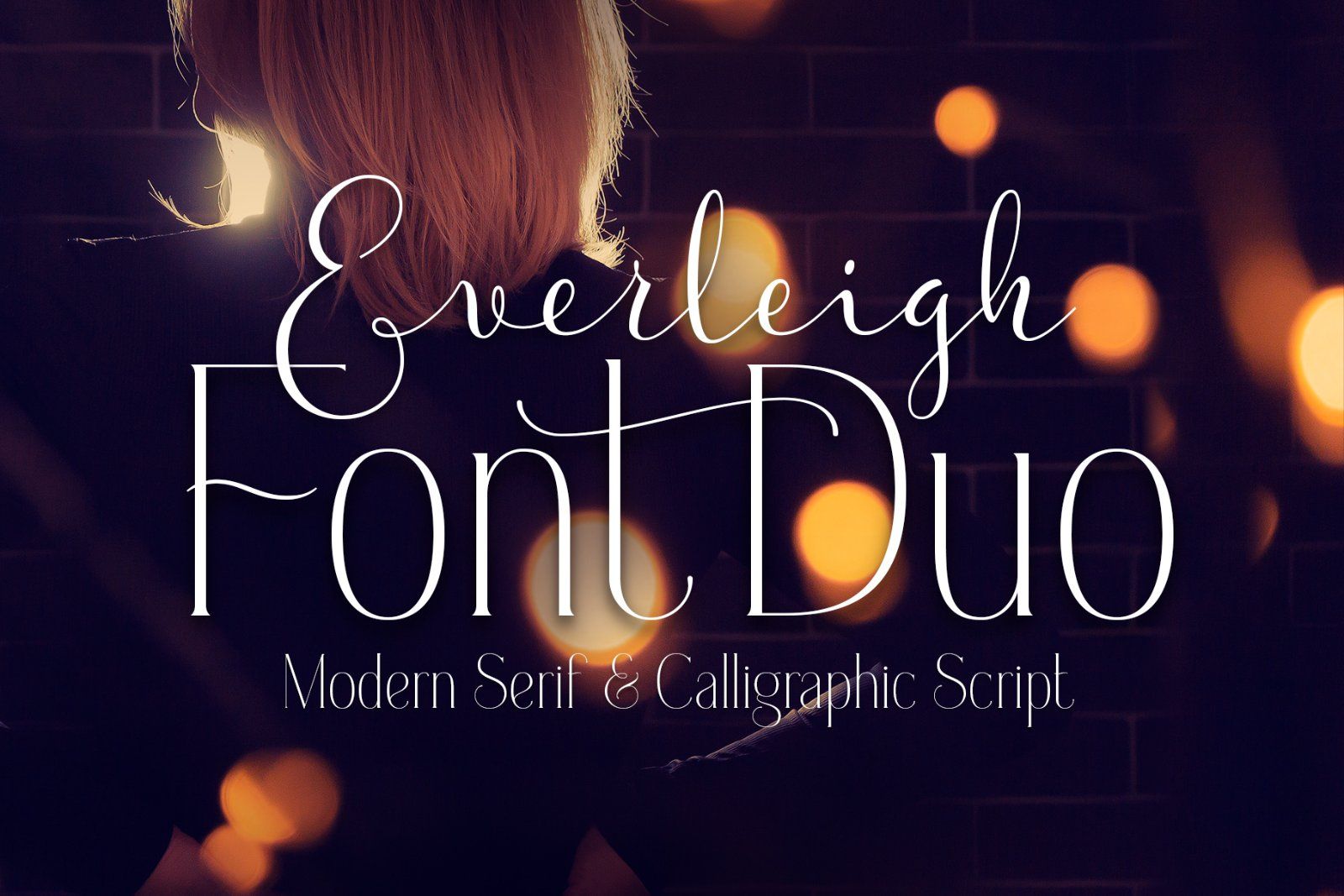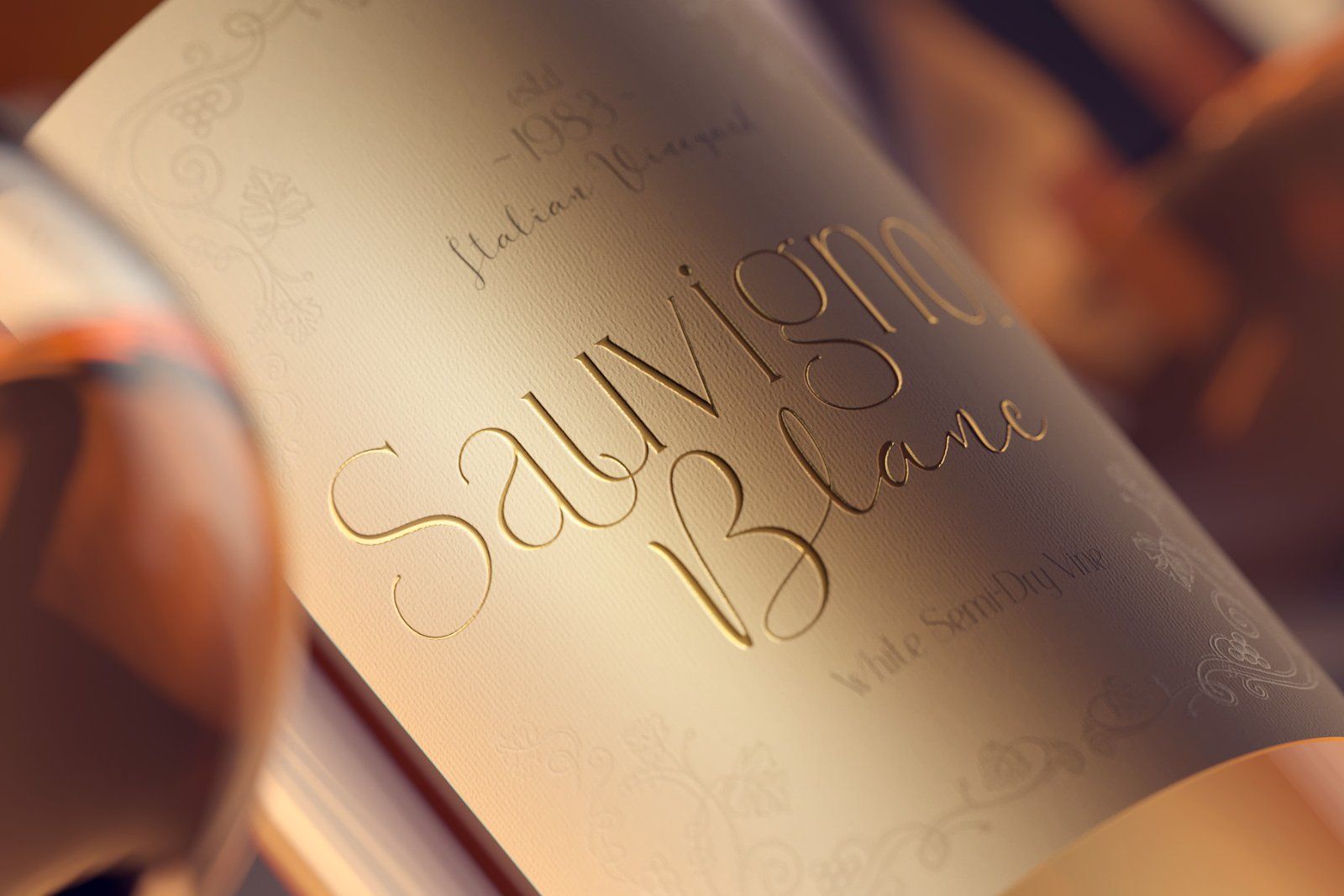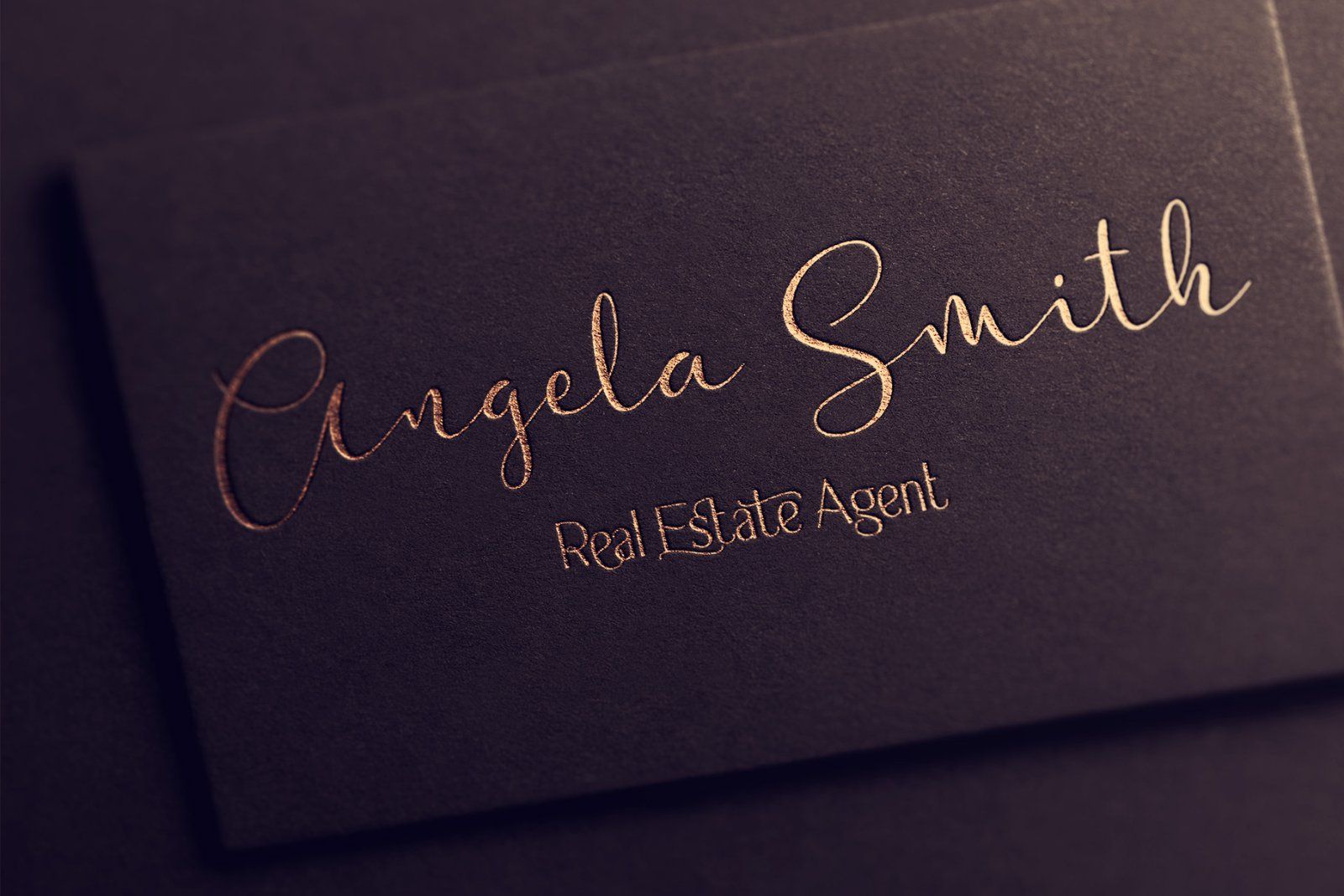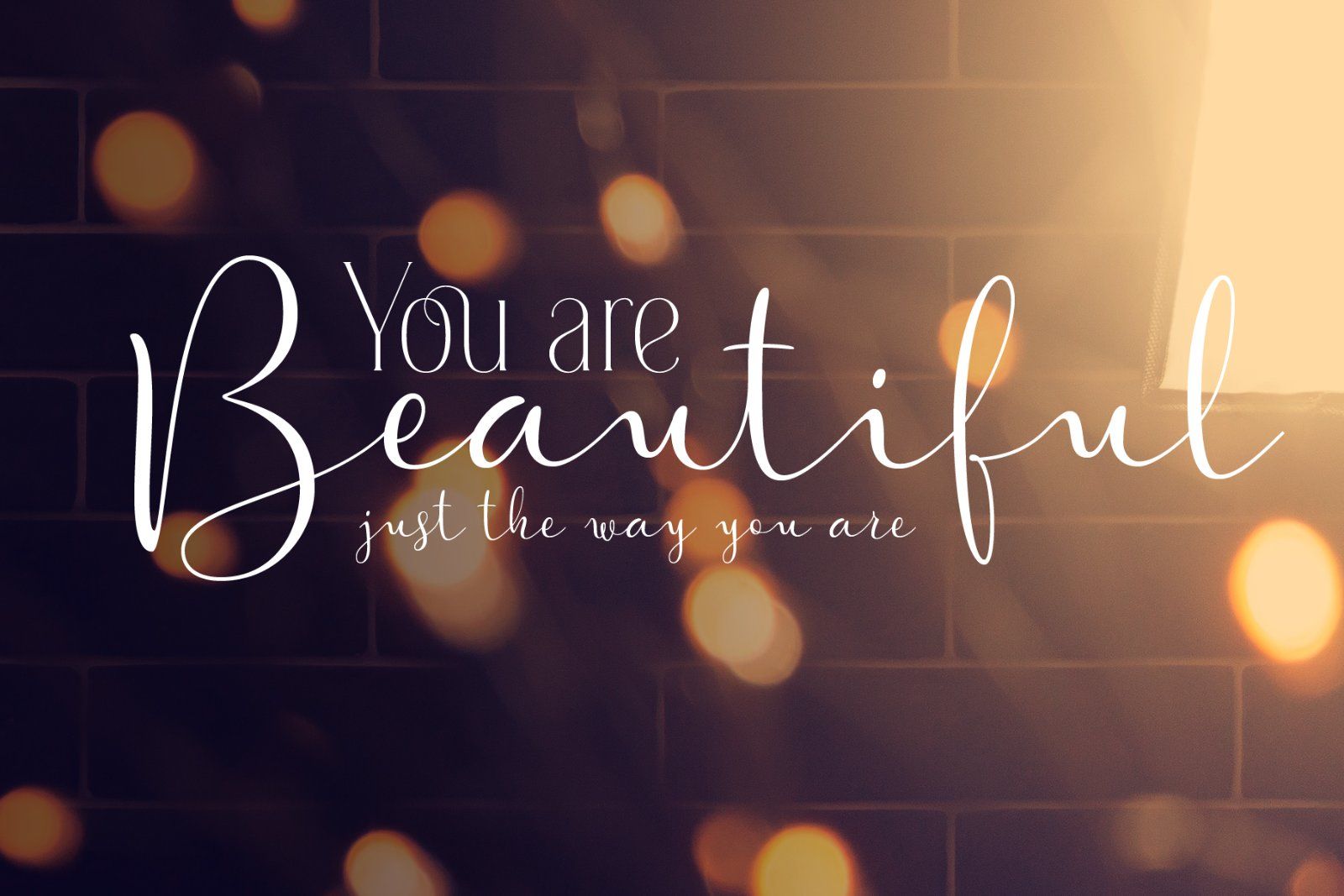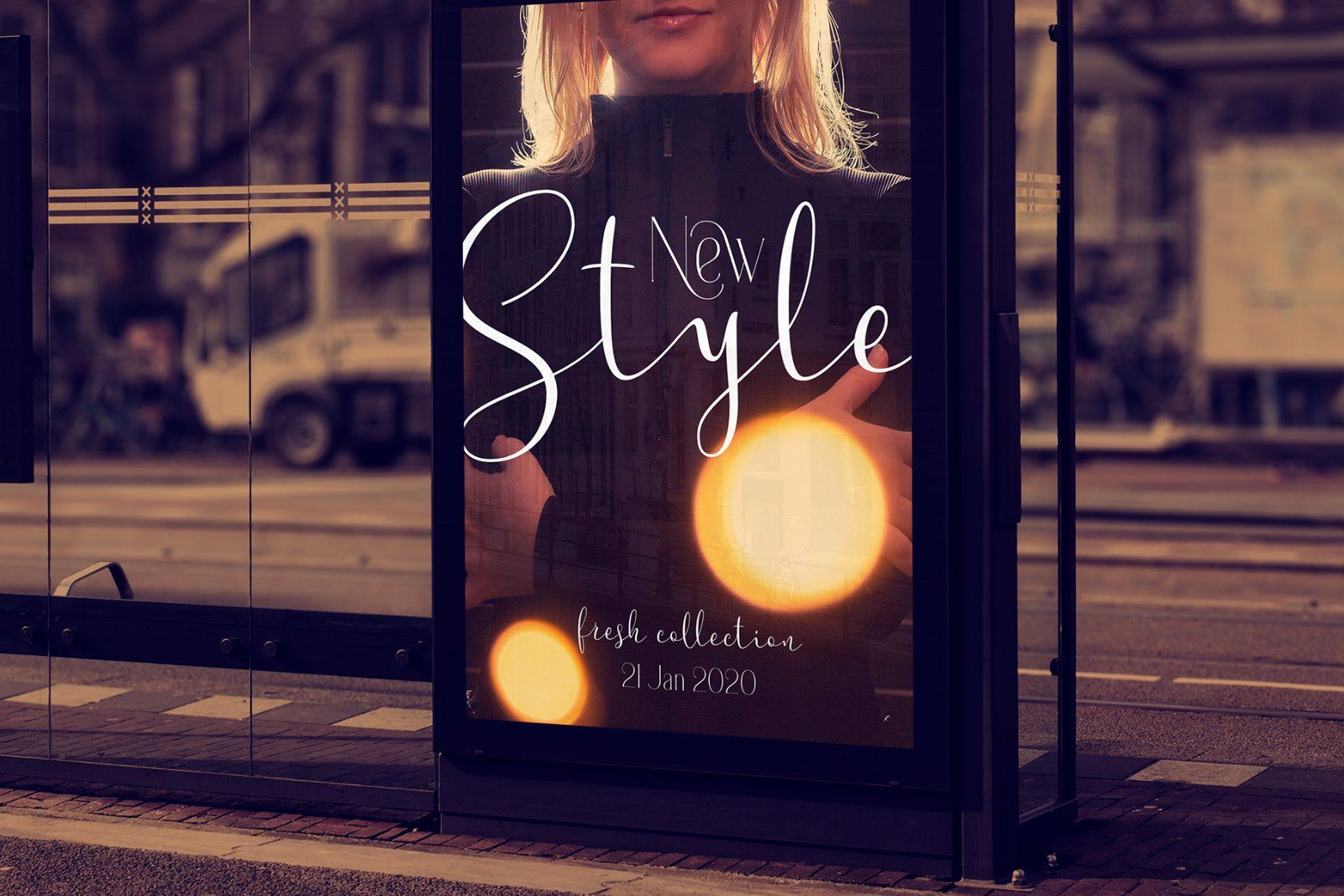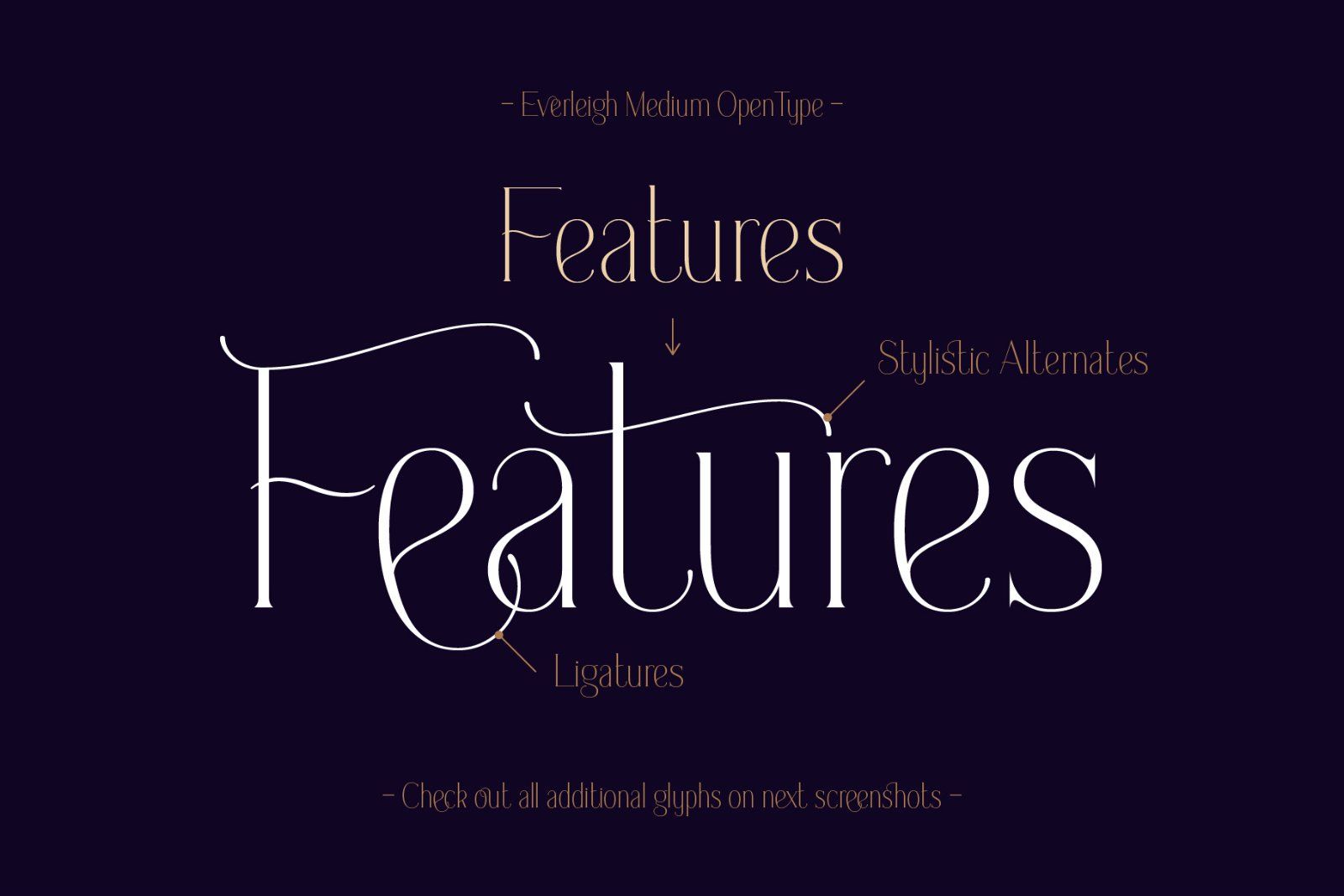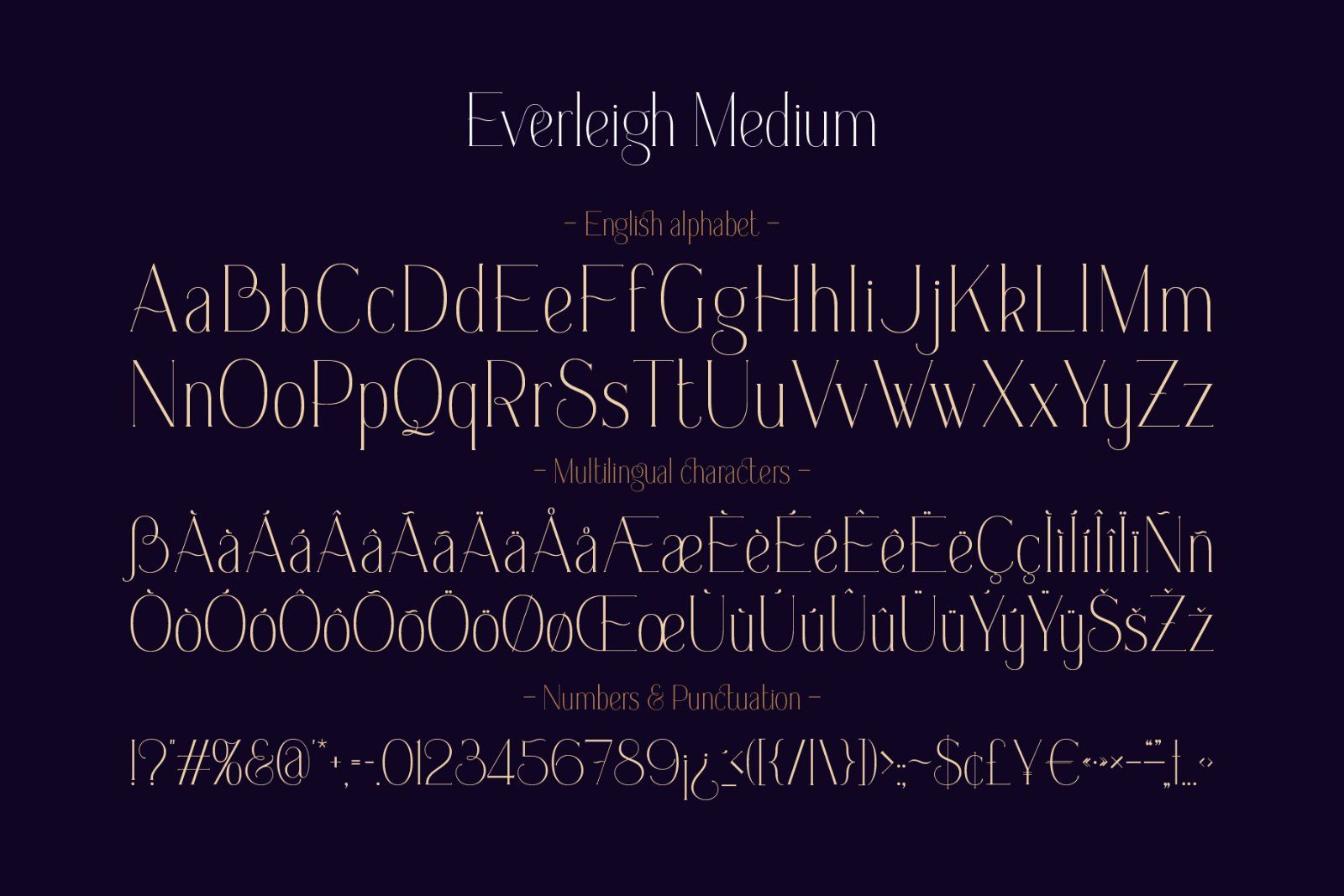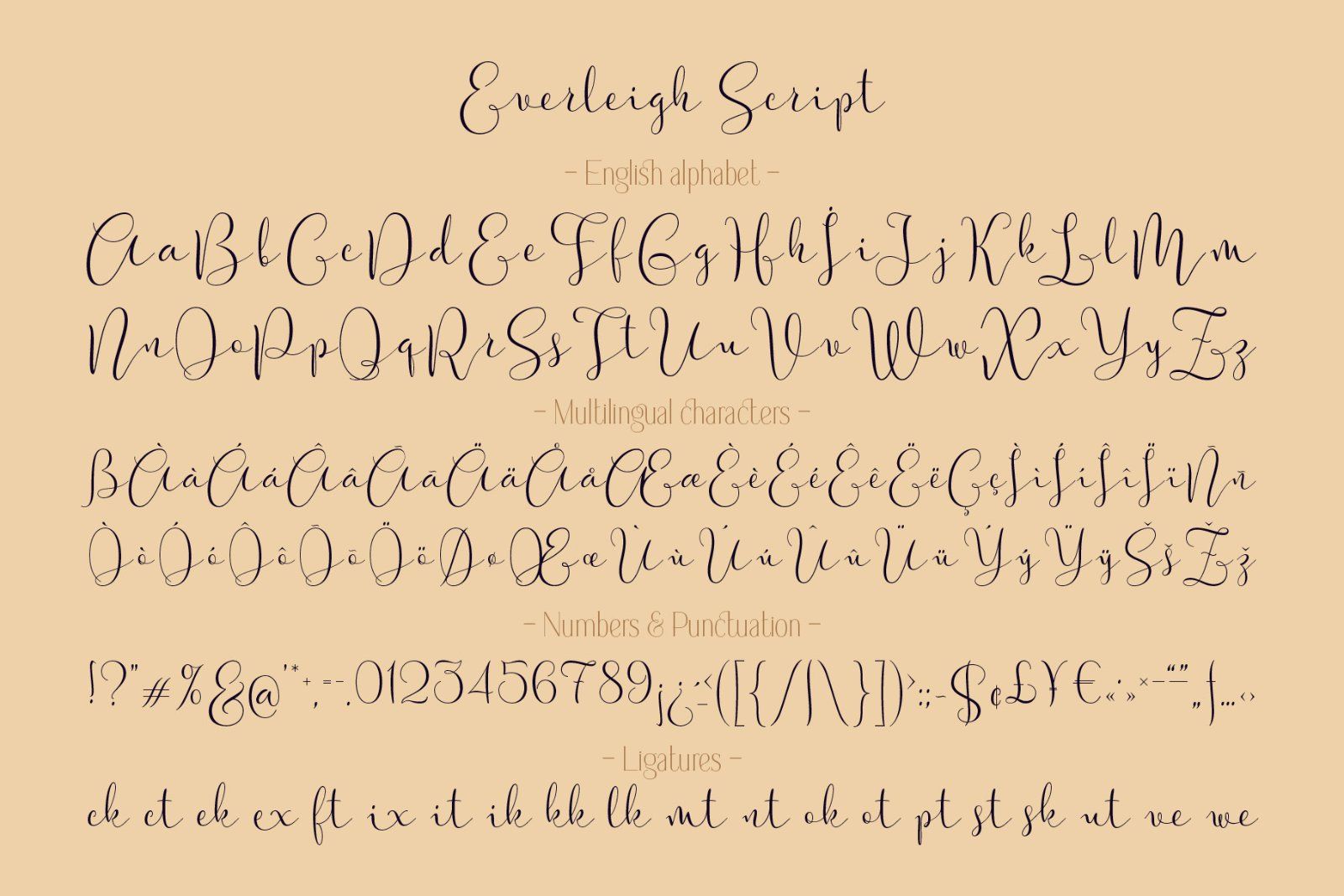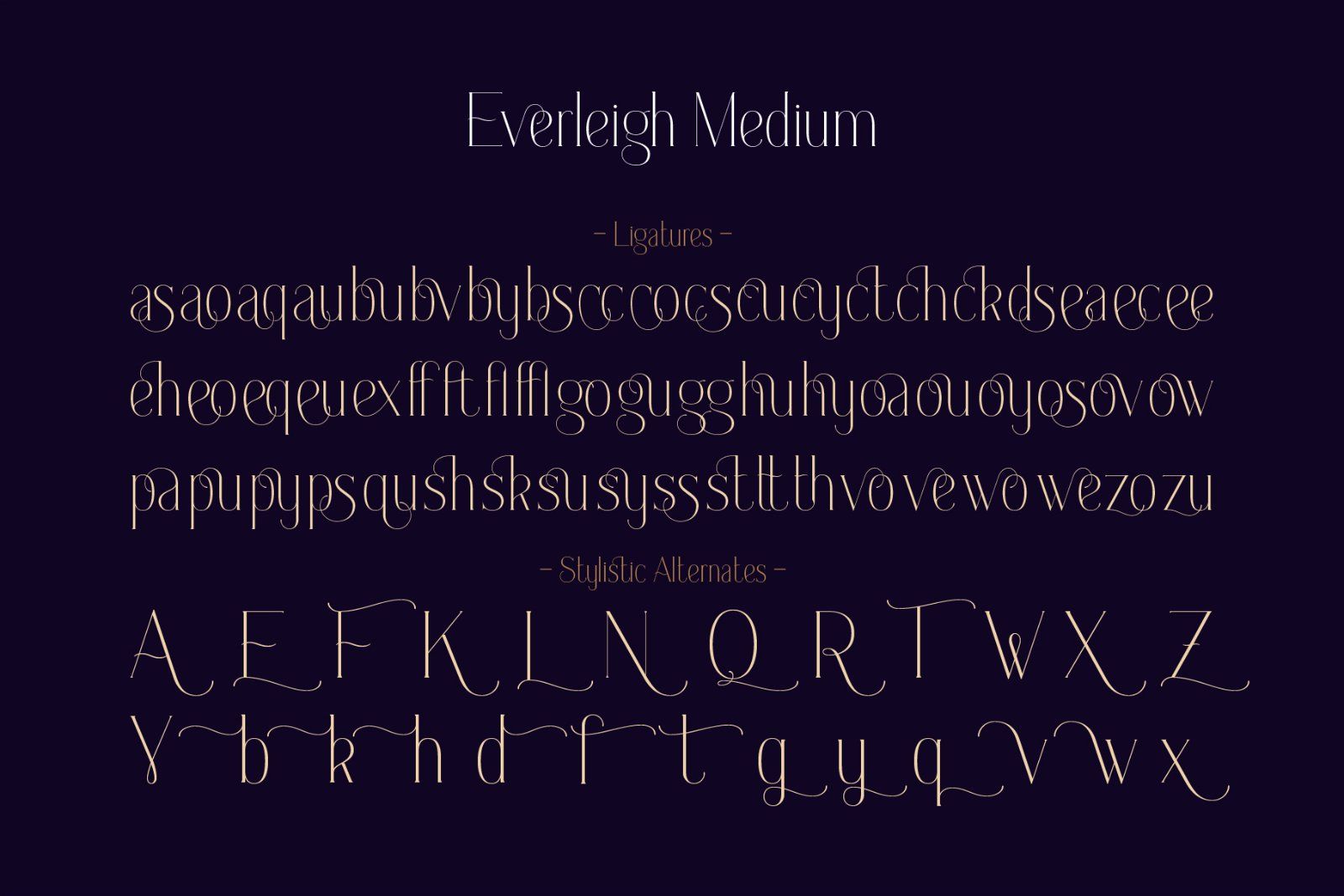
Hi, introducing a beautiful font duo from Everleigh series. It consists of two typefaces - thin serif font and calligraphic script font. Both of this fonts has an elegant thin shape with classic influences. This pair is created in one breath and they matches perfectly in lots of lettering composition.
Everleigh Script - it's a connected script typeface that imitates handwritten pen calligraphy. It includes lots of ligatures and multilingual support.
Everleigh Medium - it's a little modified version of my another font Everleigh Serif. This typeface has tiny thicker shape an slightly different serifs, which makes it more useful on dark background. It also has lots of ligatures and stylistic alternates.